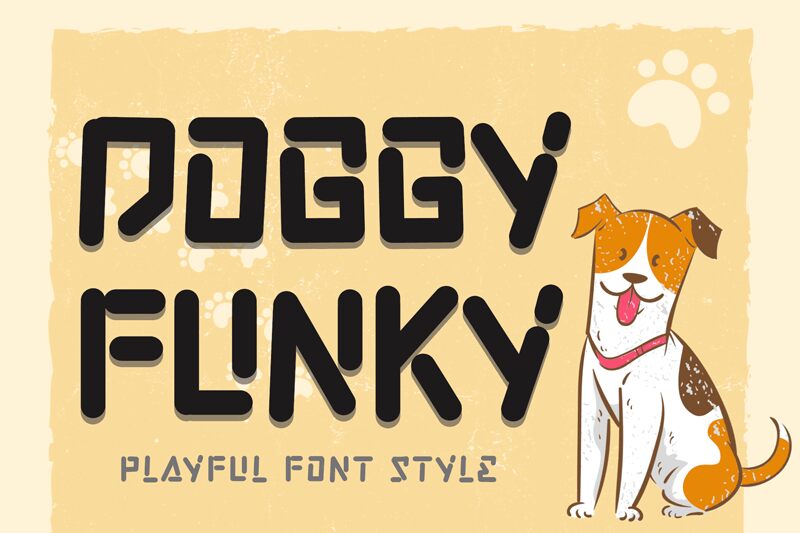
Doggy Funky font by Yoga Letter is a free font designed to add style to your quirky graphic design applications. Made up of thick and rounded geometric elements, this playful typeface contains stylized letters and glyphs that combine together into unique styles. Inspired by dog artistry, it is the best option for creating unique visual artworks with flair.
As the owner of a loveable pet business or for comfortable advertising concepts, Doggy Funky is the option you will want to use. It should look great as the headline on a website or magazine, in print on flyers, or on the packaging of a product.